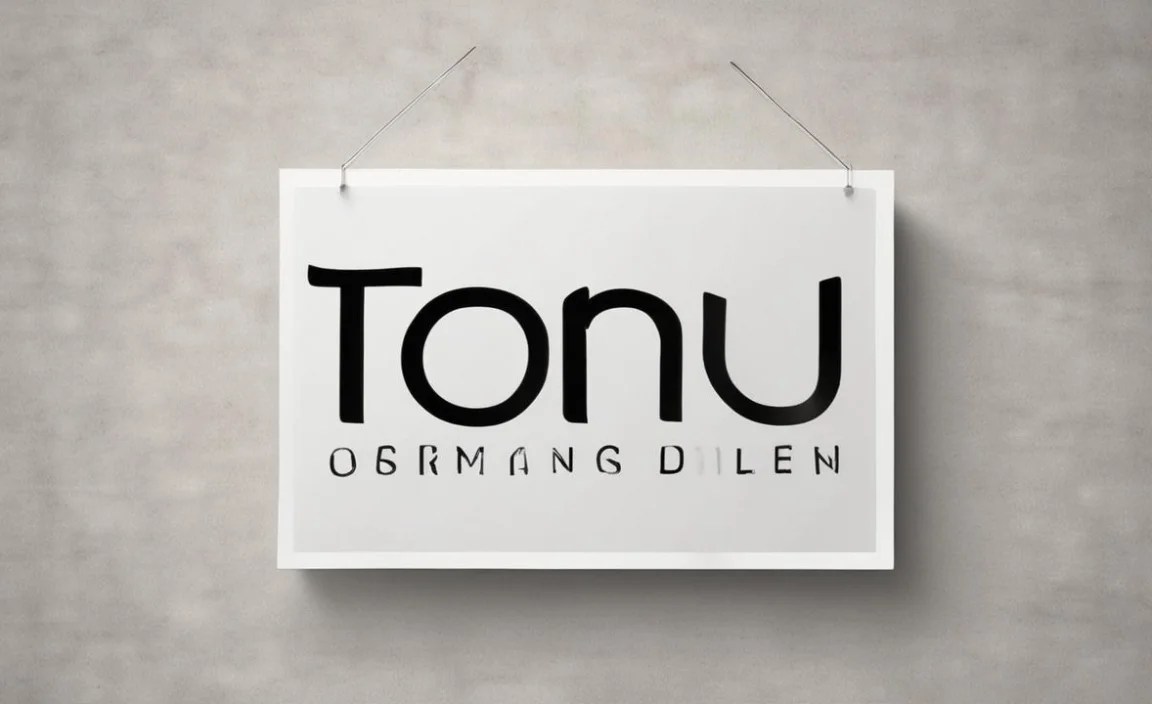
Discover “Tondu Font,” a versatile typeface perfect for modern design. This guide explores its origins, key features, and showcases stunning ways to use it for impactful branding, web design, and print projects. Learn why Tondu is a top choice for designers seeking clarity and style.
Choosing the right font can feel like picking the perfect outfit for your brand. It needs to look great, feel right, and clearly communicate who you are. Sometimes, a single font family can do all of that and more! Today, we’re diving into the wonderful world of the Tondu font. If you’ve ever stumbled upon a design that felt both contemporary and classic, with a touch of friendly warmth, there’s a good chance Tondu was playing a starring role. It’s a fantastic option for anyone looking to add a splash of personality without sacrificing readability. Let’s explore why this typeface is so special and how you can make it shine in your own projects.
What is Tondu Font? A Designer’s Delight
Tondu Font is a modern sans-serif typeface family designed by Fontsmith (now part of Monotype). It strikes a beautiful balance between geometric shapes and humanist influences, giving it a friendly yet professional character. Think clean lines with subtle curves that make it incredibly approachable and easy on the eyes. This unique blend is what makes Tondu so versatile, fitting effortlessly into a wide range of design applications.
Designed with both digital screens and print in mind, Tondu offers excellent legibility across different sizes and resolutions. Its well-crafted letterforms ensure that text remains clear and engaging, whether it’s a headline, body copy, or a small call-to-action button.
The Anatomy of Tondu: Key Features That Make It Shine
What exactly gives Tondu its distinct charm and functionality? It’s in the details! Let’s break down some of its most notable characteristics:
Humanist Sans-Serif Style: Tondu isn’t purely geometric. It incorporates subtle humanist touches, like varying stroke widths and slightly open apertures, which add warmth and improve readability. This makes it more inviting than strictly geometric sans-serifs.
Exceptional Readability: The generous x-height (the height of lowercase letters like ‘x’) and open counters (the enclosed or partially enclosed negative space in characters like ‘o’ or ‘a’) contribute to its superb legibility, even at small sizes. This is a crucial factor for web design and body text.
Extensive Font Family: Tondu comes in a wide array of weights, from a Hairline Thin to an Ultra Black. This provides designers with immense flexibility to create visual hierarchy and express different moods within a unified typographic system. You can find italic versions for most weights too.
Modern Yet Timeless Appeal: Its clean design ensures it feels current and forward-thinking, while its balanced proportions give it a classic, enduring quality that won’t quickly go out of style.
Subtle Personality: While a workhorse font, Tondu isn’t boring. The slight quirks in its letterforms, like the distinctive ‘g’ or the subtly squared-off ‘o’, add a touch of character that elevates it beyond a generic sans-serif.
These features combine to make Tondu a reliable and aesthetically pleasing choice for a multitude of design needs.
Why Choose Tondu Font for Your Next Project?
The benefits of incorporating Tondu into your design toolkit are numerous. Here are some compelling reasons why it’s an excellent choice:
Versatility: It works beautifully for branding, web design, editorial layouts, UI design, packaging, and more. Its adaptability makes it a true chameleon in the design world.
Clarity and Professionalism: Tondu conveys a sense of order, clarity, and professionalism, making it ideal for brands that want to appear trustworthy and efficient.
Warmth and Approachability: The humanist touches give it a distinct friendliness, making it perfect for brands aiming for a more personal or engaging connection with their audience.
Excellent Legibility: Crucial for user experience on websites and apps, as well as for long-form reading in print.
Branding Consistency: With its extensive family weights and styles, you can build a complete visual identity system using just Tondu, ensuring consistency across all touchpoints.
Modern Aesthetics: It aligns perfectly with contemporary design trends that favor clean, uncluttered, and visually appealing typography.
This broad applicability ensures that no matter your project, Tondu is likely to be a strong contender for fulfilling your typographic needs effectively and stylishly.
Exploring the Tondu Font Family: Weights and Styles
One of Tondu’s greatest strengths is its comprehensive family. Having a range of weights allows for precise typographic control, from impactful headlines to subtle supporting text. Let’s look at the typical structure of the Tondu family:
| Weight | Use Case Examples | Feel |
| Hairline | Very subtle accents, high-end luxury branding | Delicate, airy, refined |
| Thin | Small, elegant captions, minimalist design elements | Light, subtle, airy |
| Light | Subheads, body text in spacious layouts, descriptive text | Gentle, understated, soft |
| Regular | Body text, general use, captions | Clear, balanced, natural |
| Medium | Stronger subheads, UI elements, emphasized text | Solid, present, dependable |
| Semibold | Headlines, calls to action needing more presence | Bold, confident, impactful |
| Bold | Major headlines, strong statements, key product names | Strong, authoritative, dominant |
| Extrabold | Very large display headlines, impactful branding words | Powerful, commanding, attention-grabbing |
| Black | Extreme impact headlines, logotype elements | Ultimate power, unmissable |
Each weight can be paired with its italic counterpart for added emphasis or stylistic variation within the family. This depth ensures you can achieve a wide spectrum of visual expressions while maintaining a cohesive typographic voice.
Stunning Tondu Font Pairing Strategies
While Tondu is fantastic on its own, pairing it with other typefaces can create even more dynamic and memorable designs. The key is to find complementary fonts that enhance Tondu’s strengths without competing with it. Here are some effective pairing strategies:
1. Tondu with a Serif Font: The Classic Contrast
Pairing a clean sans-serif like Tondu with a classic serif font creates a sophisticated contrast. The serif provides a touch of tradition and elegance, while Tondu brings modernity and readability.
For Headlines: Use a strong serif font with character, like Source Serif Pro or Merriweather. Its ornate details will stand out against Tondu’s clean lines.
For Body Text: Let Tondu (likely in Regular or Light weight) handle the main body copy for effortless readability.
When to Use This: Ideal for editorial designs, websites, and branding for businesses that blend tradition with innovation, such as educational institutions, financial services, or artisanal brands.
2. Tondu with a Dramatic Display Font: Bold Statements
For projects needing a serious punch, pairing Tondu with a distinctive display font can be highly effective. The display font handles the attention-grabbing elements, while Tondu provides solid, readable support.
For Headlines: Choose a bold, stylized, or even a quirky display font like Abril Fatface (for a vintage feel) or a modern geometric display like Visby CF.
For Body Text: Tondu is your go-to for clarity. Use a medium or regular weight for all supporting text.
When to Use This: Great for marketing materials, event promotions, magazine covers, or websites where certain elements need to pop – think fashion, entertainment, or creative agencies.
3. Tondu with a Script Font: A Touch of Elegance
To inject a bit of personality and flair, consider pairing Tondu with a beautiful script font. The script adds a personal, artisanal touch, while Tondu keeps things legible and grounded.
For Headlines/Accents: A flowing, elegant script like Dancing Script or Great Vibes can be used sparingly for titles or special callouts.
For Body Text: Tondu provides the essential readability. Ensure your script usage is minimal and complements, rather than overwhelms, the page.
When to Use This: Perfect for wedding invitations, bakery brands, lifestyle blogs, or anything requiring a touch of elegance and personal connection.
4. Tondu with Another Sans-Serif: Subtle Nuance
Pairing Tondu with another sans-serif is about creating subtle textural differences or functional contrasts. It’s a popular choice for UI design and modern branding.
Option A: Different Personalities: Pair Tondu with a more geometric sans-serif (like Montserrat or Poppins) for headlines or UI elements, and use Tondu for body text. This creates a clear textural shift.
Option B: Weight Contrast: Use a very light or very bold weight of Tondu for headlines and a regular weight for body copy. Or, pair Tondu Regular with a different, more condensed or wider sans-serif for contrast.
When to Use This: Excellent for tech companies, app interfaces, corporate branding, and minimalist designs where clarity and a modern aesthetic are paramount.
When choosing pairs, always test them at actual sizes and in context. Look for fonts that share a similar design philosophy or offer a pleasing contrast in character and weight. The goal is always harmony and enhanced communication.
Creative Applications of Tondu Font
Tondu’s versatility means it can elevate a wide array of design projects. Let’s explore some captivating ways to use it:
Branding and Logo Design
Tondu is a fantastic choice for brand identity. Consider its use in:
Logotypes: A custom logotype set entirely in Tondu, perhaps using a bold weight, can convey strength and modernity. The subtle character of Tondu allows it to feel unique without being overly stylized.
Brand Guidelines: The extensive family allows for a complete typographic system. Use different weights for headings, subheadings, body copy, and captions across all brand literature, ensuring consistency.
Taglines and Slogans: A well-chosen weight of Tondu can make taglines impactful yet accessible.
Web Design and UI/UX
For digital interfaces, Tondu excels due to its legibility and clean aesthetic:
Website Headlines and Navigation: Its clear forms ensure users can quickly scan and understand content.
Body Text: Essential for articles, blog posts, and product descriptions, Tondu ensures comfortable reading for extended periods. You can explore fonts from Google Fonts for web use, for example, Open Sans shares some functional similarities in its readability.
User Interface Elements: Buttons, forms, and labels benefit from Tondu’s clarity. Its balanced weight distribution works well on various screen sizes.
Editorial Layouts and Print Design
Tondu brings a contemporary and sophisticated feel to print media:
Magazines and Newspapers: Use bolder weights for headlines and lighter weights for articles to create visual interest and guide the reader’s eye.
Books and Ebooks: Its readability makes it suitable for extensive reading, providing a comfortable experience for readers.
Brochures and Reports: Tondu lends an air of professionalism and clarity to corporate and informational documents.
Packaging: For product packaging, Tondu can communicate brand personality effectively while ensuring product information is easily readable.
Presentations and Infographics
When conveying information visually, Tondu can be a reliable ally:
Presentation Slides: Clear headings and legible body text help your audience absorb your message easily. Use varied weights to highlight key points.
Infographics: Tondu’s straightforward nature ensures that data and statistics are presented clearly and effectively, without distracting visual clutter.
The key to successful application is understanding the message you want to convey and choosing the Tondu weight and style that best supports it, often in harmony with complementary typography.
Where to Find and Use Tondu Font
Tondu Font is a premium typeface, originally developed by Fontsmith. Typically, you would acquire a license for commercial use through their official distribution channels or reputable font marketplaces.
Monotype: As Fontsmith is now part of Monotype, you can often find Tondu and its full family available through the Monotype store. This is the most direct and authorized source.
Adobe Fonts: If you are an Adobe Creative Cloud subscriber, you might find Tondu, or close relatives designed by the same foundry under the Monotype umbrella, available within your subscription. Check the Adobe Fonts library.
Other Resellers: Reputable online font retailers may also carry Tondu licenses. Always ensure you are purchasing from a legitimate source to guarantee you have the correct license and font files.
When using fonts for web design, ensure you have the appropriate web font license. This will enable you to use Tondu on your website efficiently using CSS. For desktop use, you’ll need a desktop license for applications like Adobe Photoshop, Illustrator, or InDesign.
Frequently Asked Questions About Tondu Font
What kind of font is Tondu?
Tondu is a modern, humanist sans-serif font. It combines clean, geometric forms with subtle organic touches, making it highly readable and friendly.
Is Tondu suitable for body text?
Yes, absolutely! Tondu’s excellent legibility, open counters, and balanced proportions make it an ideal choice for body text in both print and digital applications.
Can I use Tondu for branding?
Tondu is an excellent choice for branding. Its versatility across various weights and its clean, approachable yet professional style allows it to adapt to many brand identities.
How many weights does the Tondu font family have?
The Tondu font family is extensive, typically offering a wide range from very light styles (like Hairline or Thin) to very heavy styles (like Black or Ultra), including italic versions for most weights. This provides significant design flexibility.
Where can I get the Tondu font?
Tondu is a commercial font. You can license it directly through Monotype, as Fontsmith is now part of Monotype, or through other authorized font resellers. It may also be available through Adobe Fonts for Creative Cloud subscribers.
Is Tondu a free font?
No, Tondu is not a free font. It is a premium typeface that requires purchasing a license for use, especially for commercial projects.
What’s the main difference between Tondu and purely geometric sans-serifs?
While Tondu has geometric construction, its humanist influences (like slight variations in stroke width and more open apertures) make it feel warmer and more natural to read than strictly geometric fonts like Futura or Avant Garde.
Conclusion: Embrace Tondu for Clarity and Style
As we’ve explored, the Tondu font is far more than just another sans-serif. It’s a thoughtfully designed typeface family that masterfully blends modern clarity with a welcoming, humanist touch. Its extensive range of weights provides designers with the flexibility to craft everything from impactful brand statements to comfortable, readable body copy.
Whether you’re building a new brand identity, designing a user-friendly website, or laying out an engaging publication, Tondu offers a reliable and aesthetically pleasing solution. Its versatility ensures it can adapt to diverse project needs, consistently delivering professionalism and subtle personality. By strategically pairing Tondu with other typefaces or leveraging its own family’s depth, you can create designs that are both visually striking and effortlessly communicative.
So, the next time you’re faced with a typographic challenge, consider the Tondu font. It might just be the perfect tool to bring your creative vision to life with clarity, style, and enduring appeal. Happy designing!